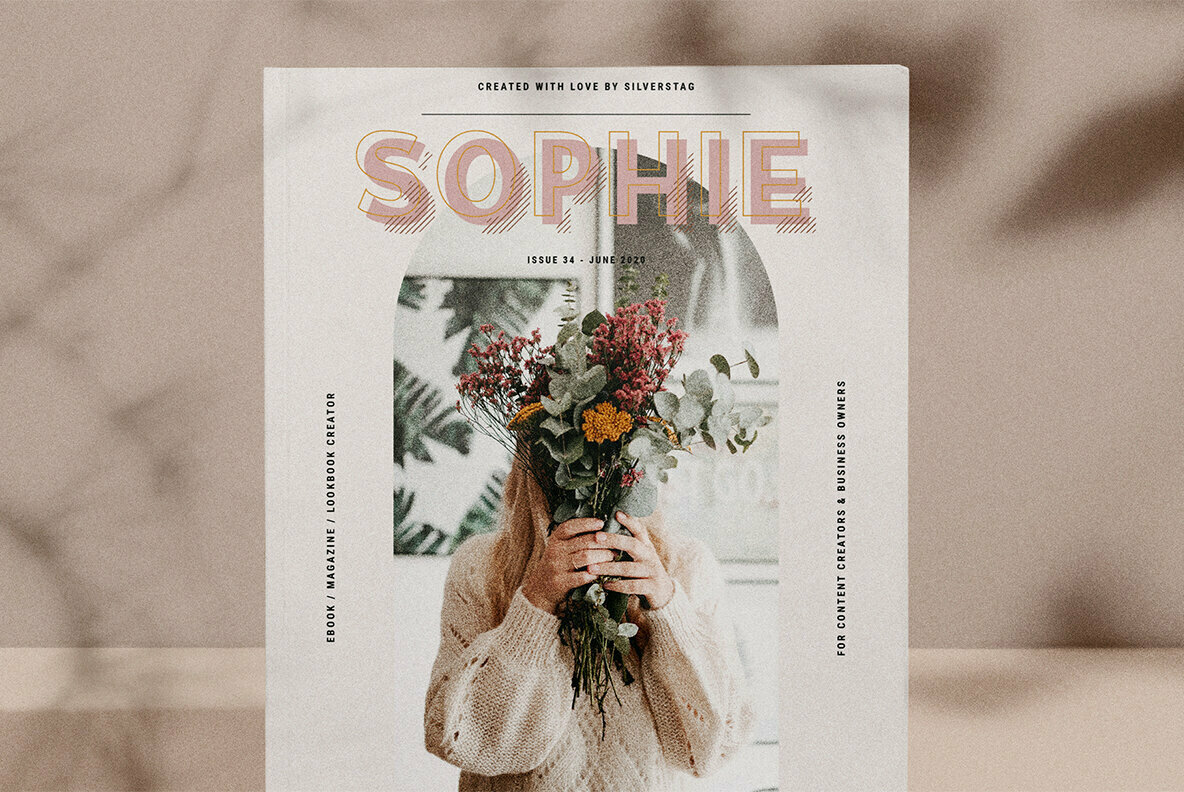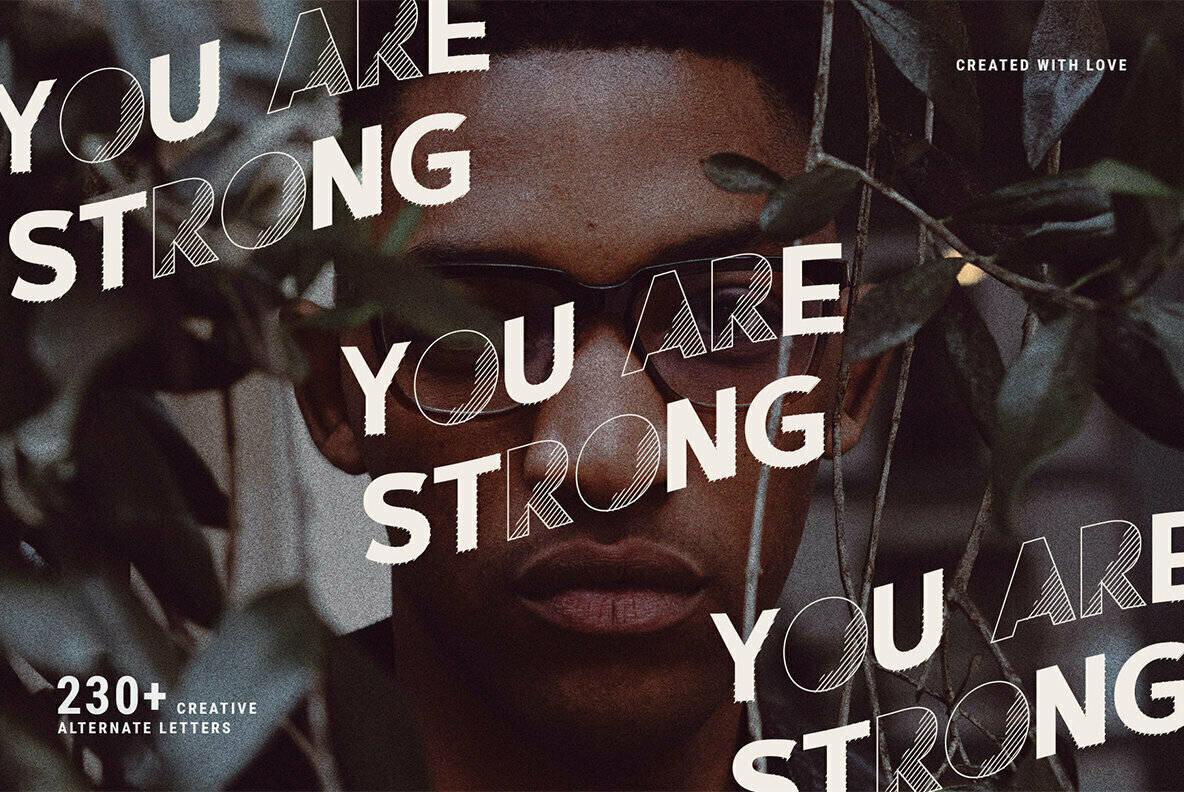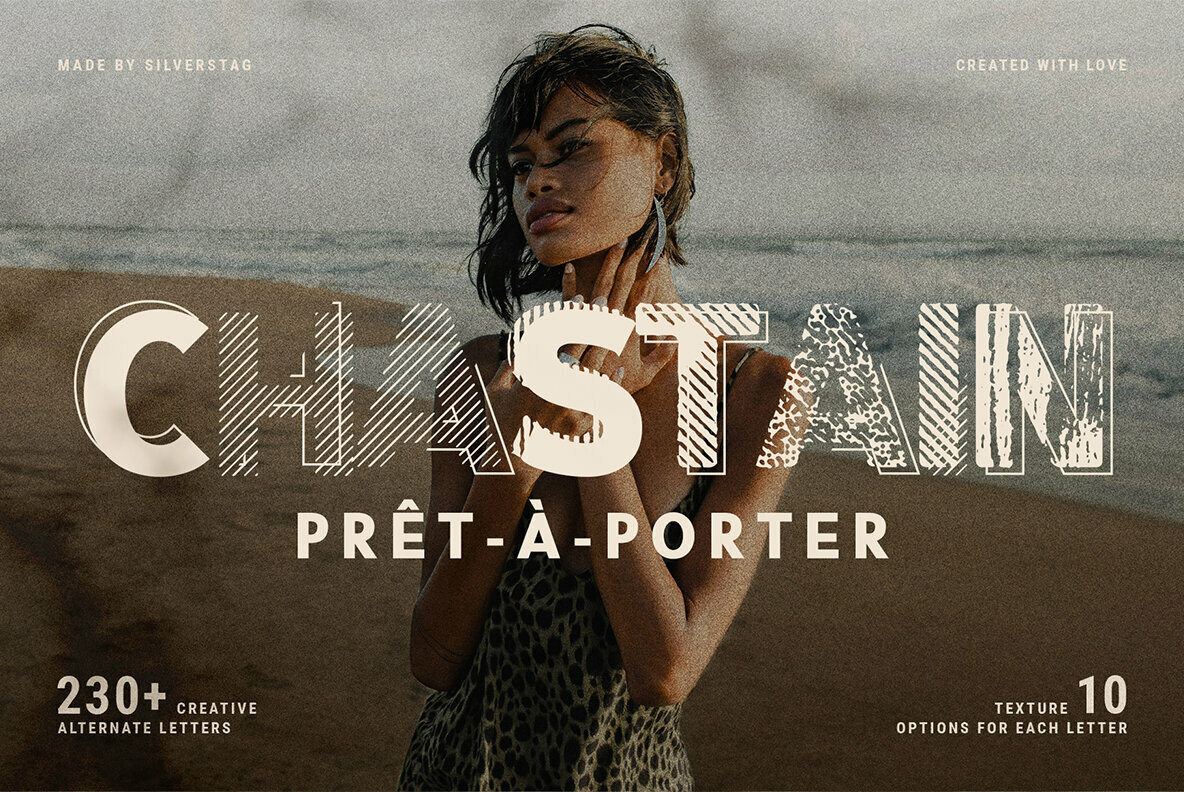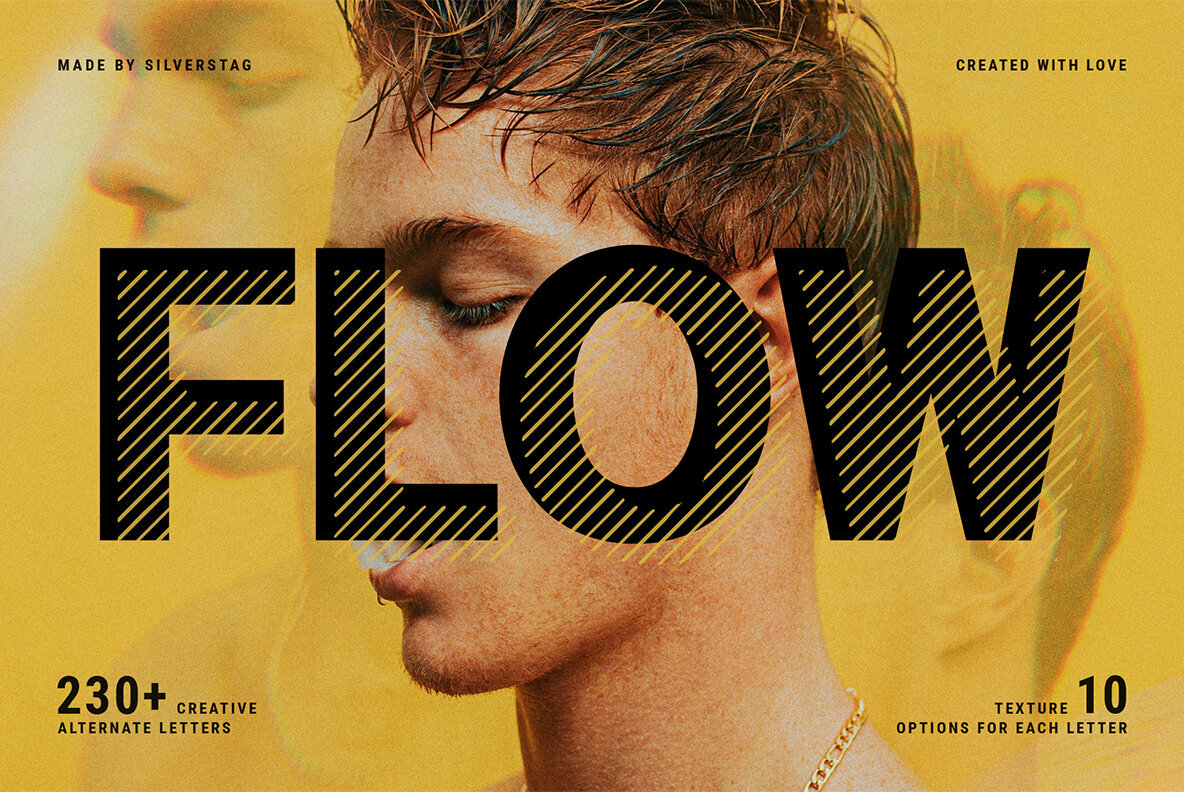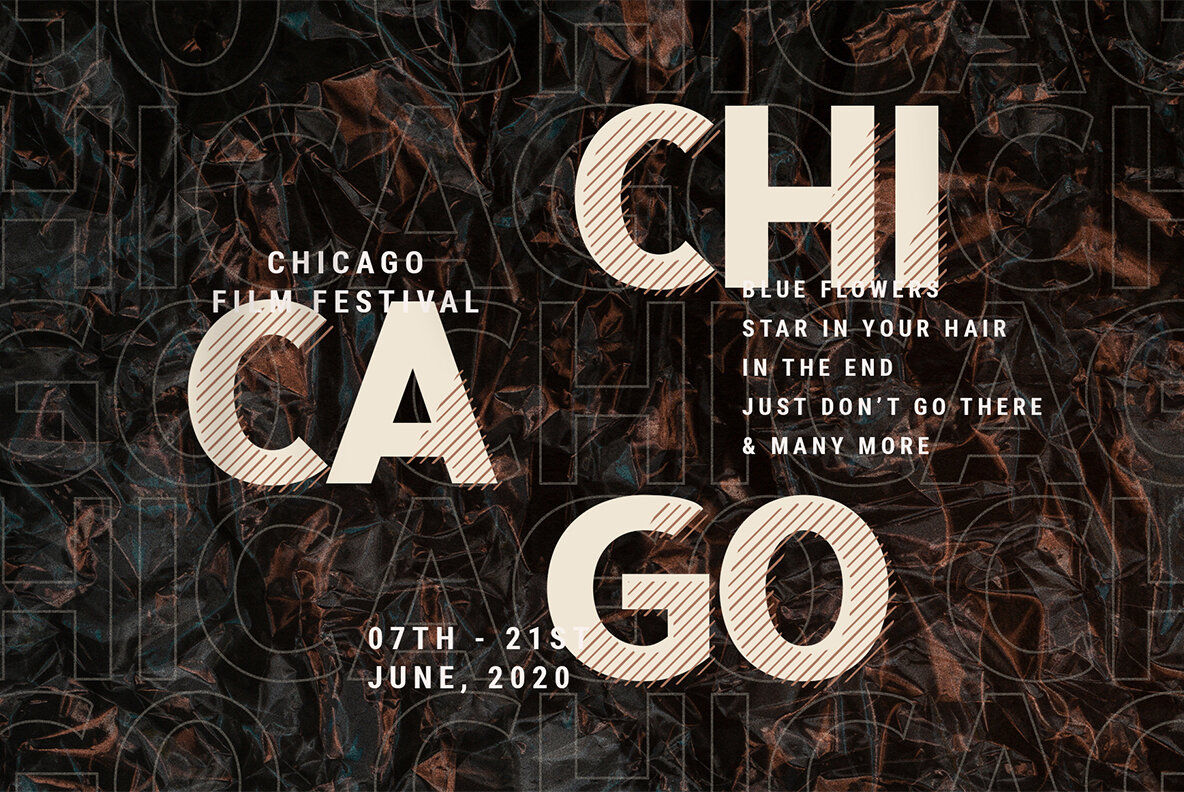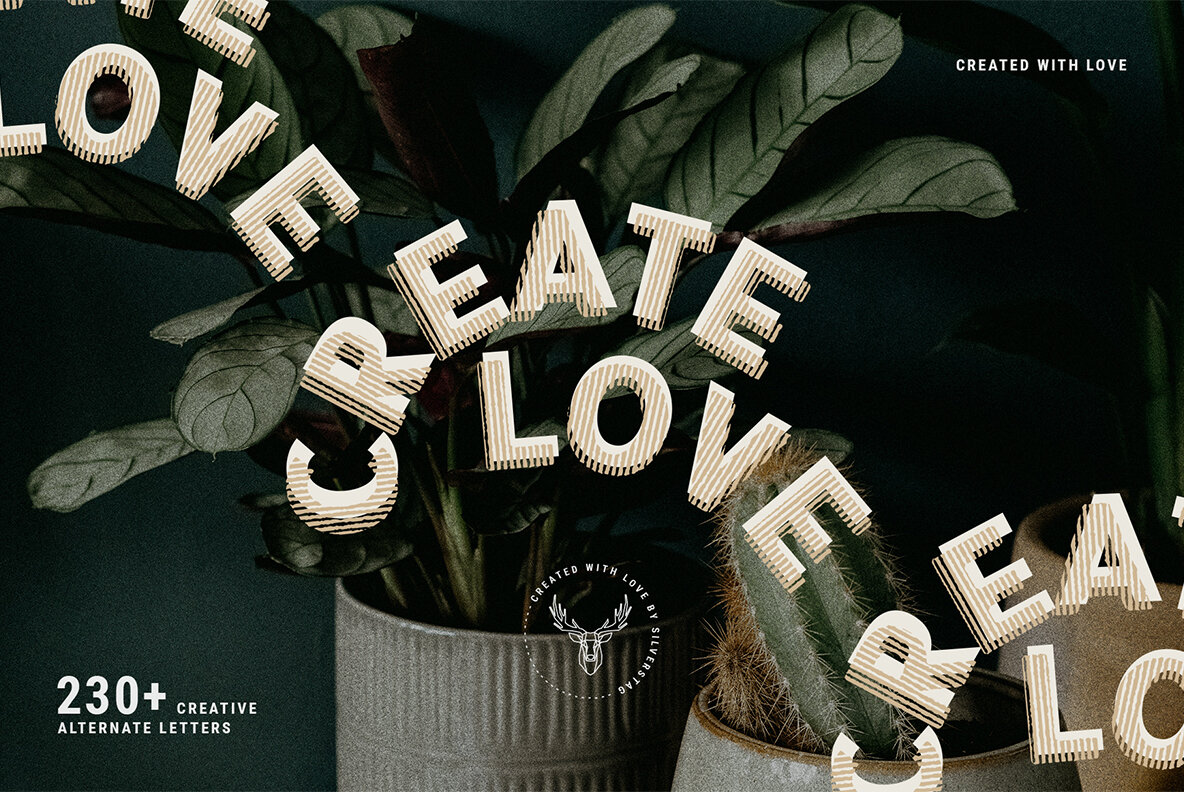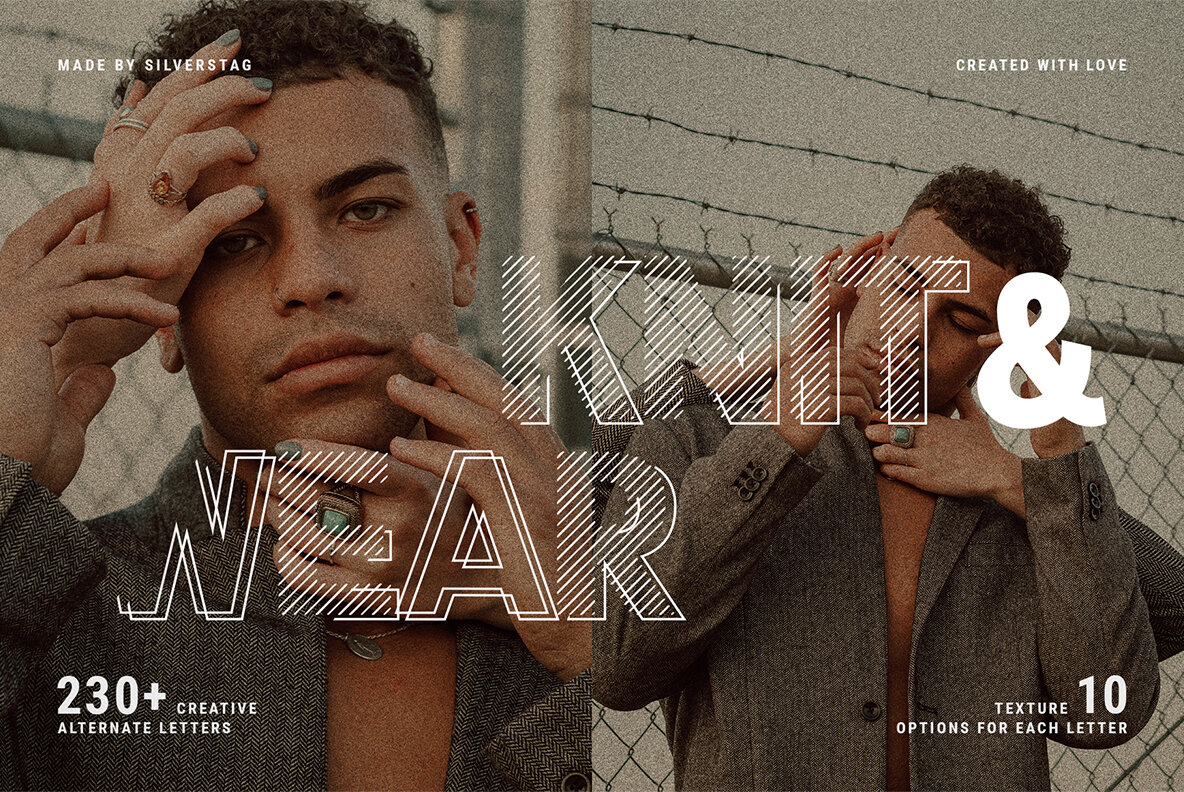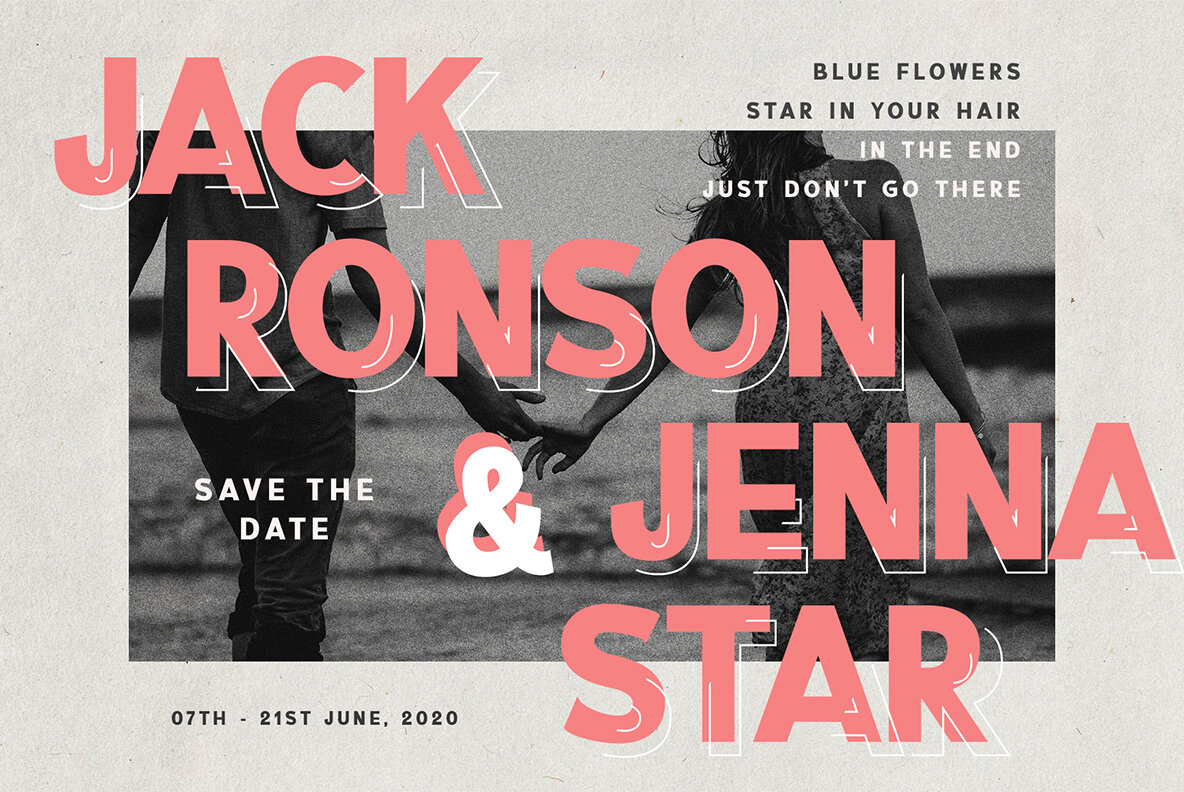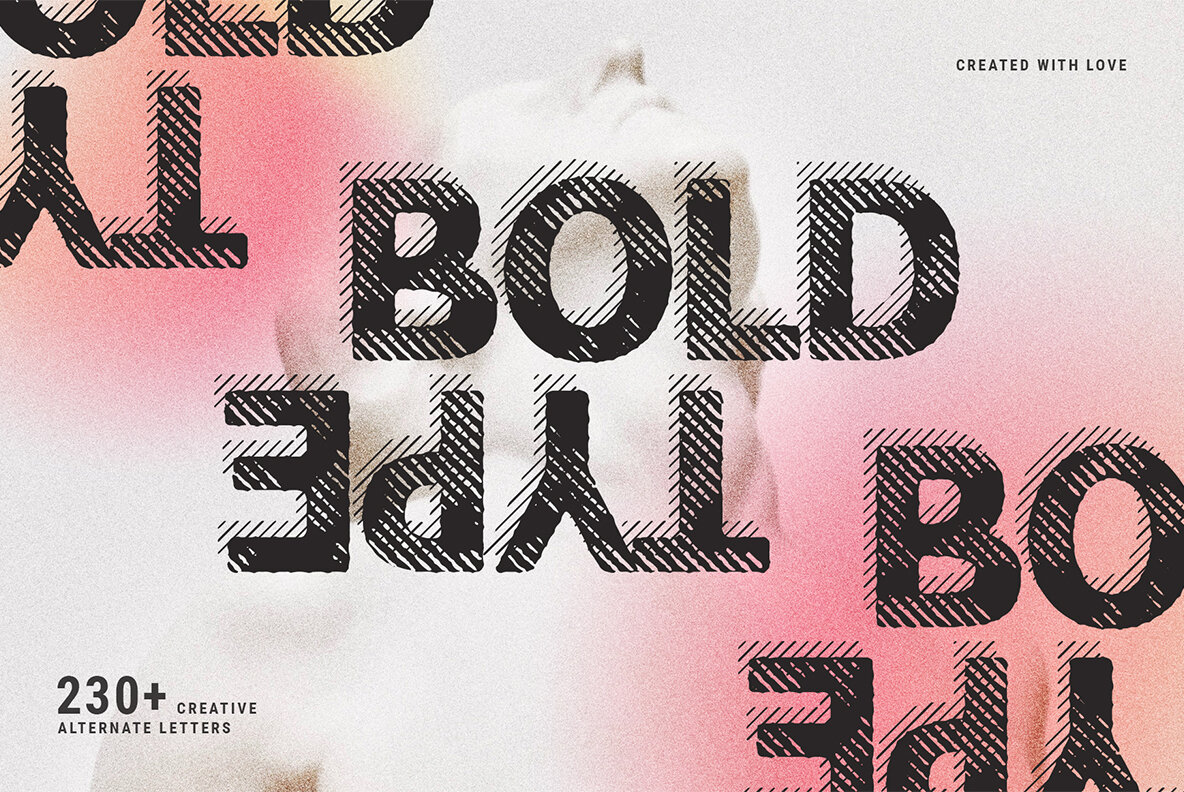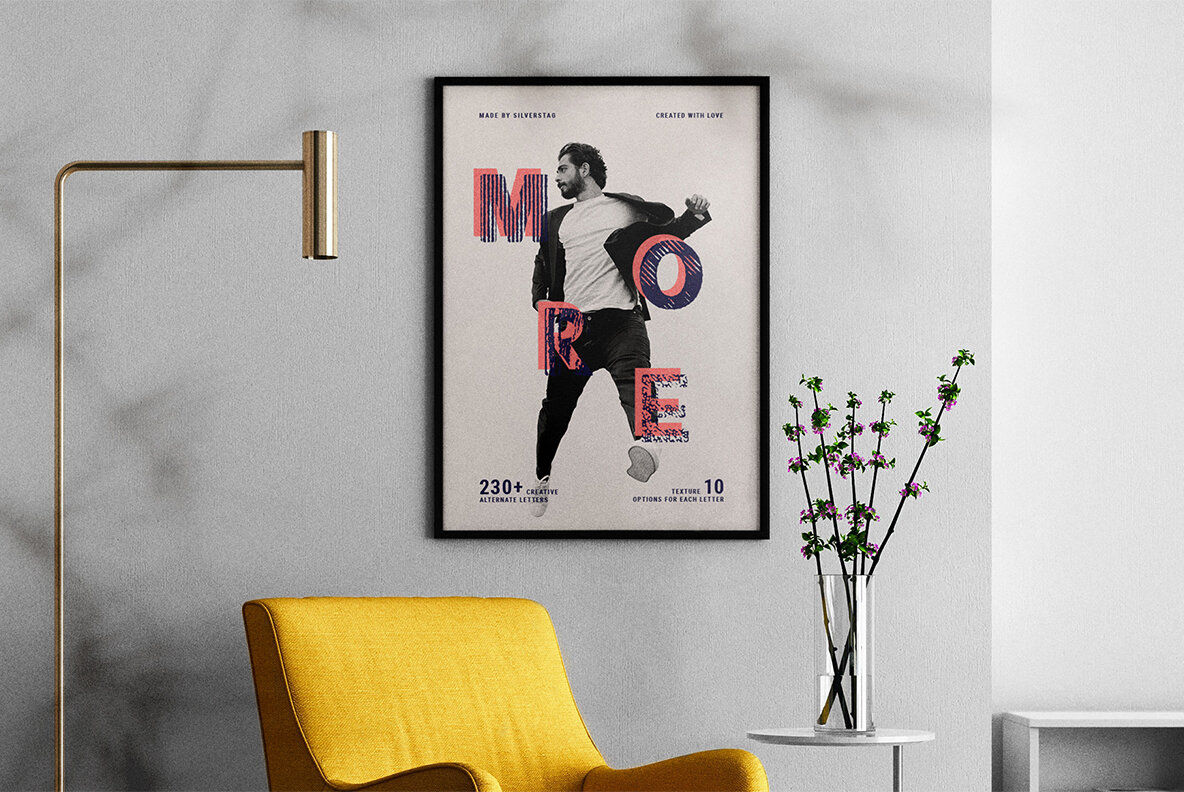
Thena Font
THENA
Thena is my new OpenType font that will make each of your projects 100% unique!
I am supper happy to present you my brand new font where each uppercase letter has 10 different versions. It is something I have been working on for quite some time now and I am sure you'll enjoy it's unique and playful look! The true handprinted look of some of the overlays will elevate your work and help you create some new and unique designs.
230+ Alternates for a unique look and feel